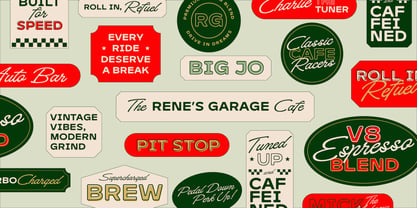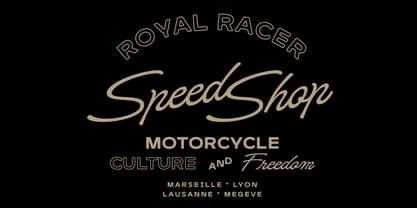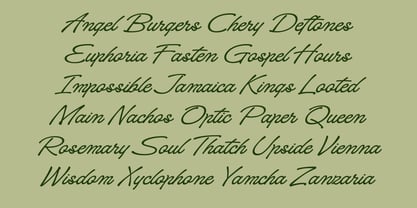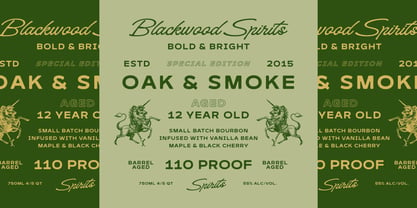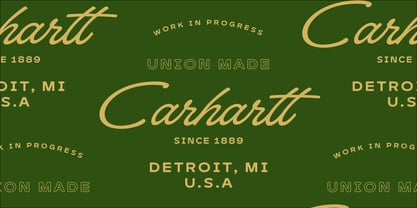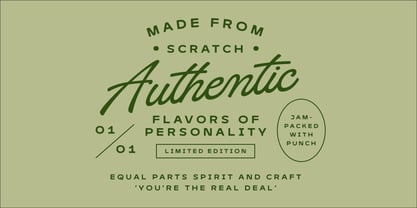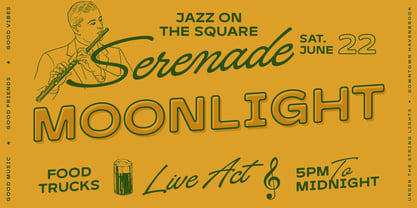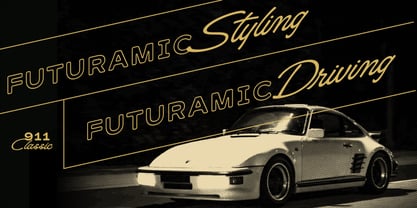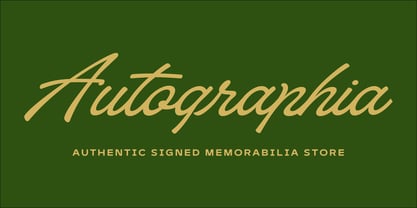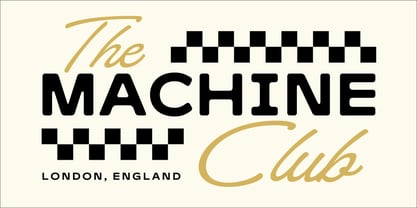
Signaturide
by Adam Fathony
The Signaturide Font Family was designed by Adam Fathoni Haris and published by Adam Fathony. Signaturide contains 3 styles and family package options. More about this family
Signaturide is a versatile vintage-inspired font duo that seamlessly blends retro charm with modern functionality. Featuring a dynamic pairing of script and sans-serif styles, Signaturide captures the expressive motion of mid-century design while offering contemporary usability for branding, editorial, and packaging projects.
Key Features:
• Script + Sans + Outline Styles: A flexible trio that includes a flowing, hand-drawn script, a bold sans serif, and a stylish outlined version for standout compositions.
• Retro Flair: Rooted in classic Americana and vintage motor culture, Signaturide brings nostalgic elegance to every letterform.
• Multilingual Support: Includes extensive character sets to accommodate a wide range of languages and special characters.
• Stylistic Alternates & Ligatures: Carefully crafted alternates and ligatures provide authentic customization and typographic personality.
• Perfect for Motion & Logos: Designed with a natural slant and kinetic energy that make it ideal for motion graphics, automotive branding, signature logos, and dynamic display use.
Ideal Uses:
• Lifestyle Branding
• Vintage Labels
• Restaurant Menus
• Motorcycle & Automotive Graphics
• Editorial Titles
• Event Posters